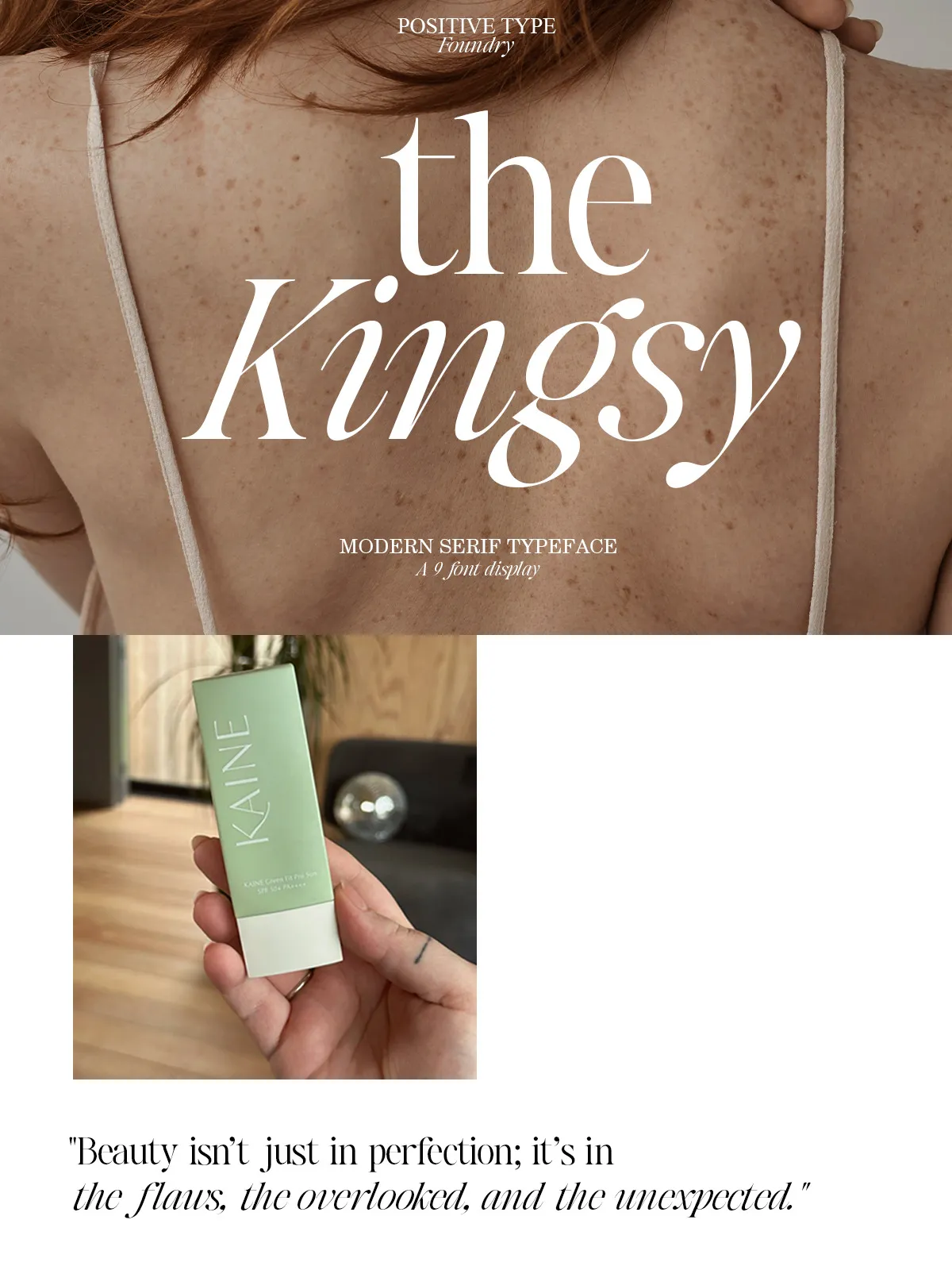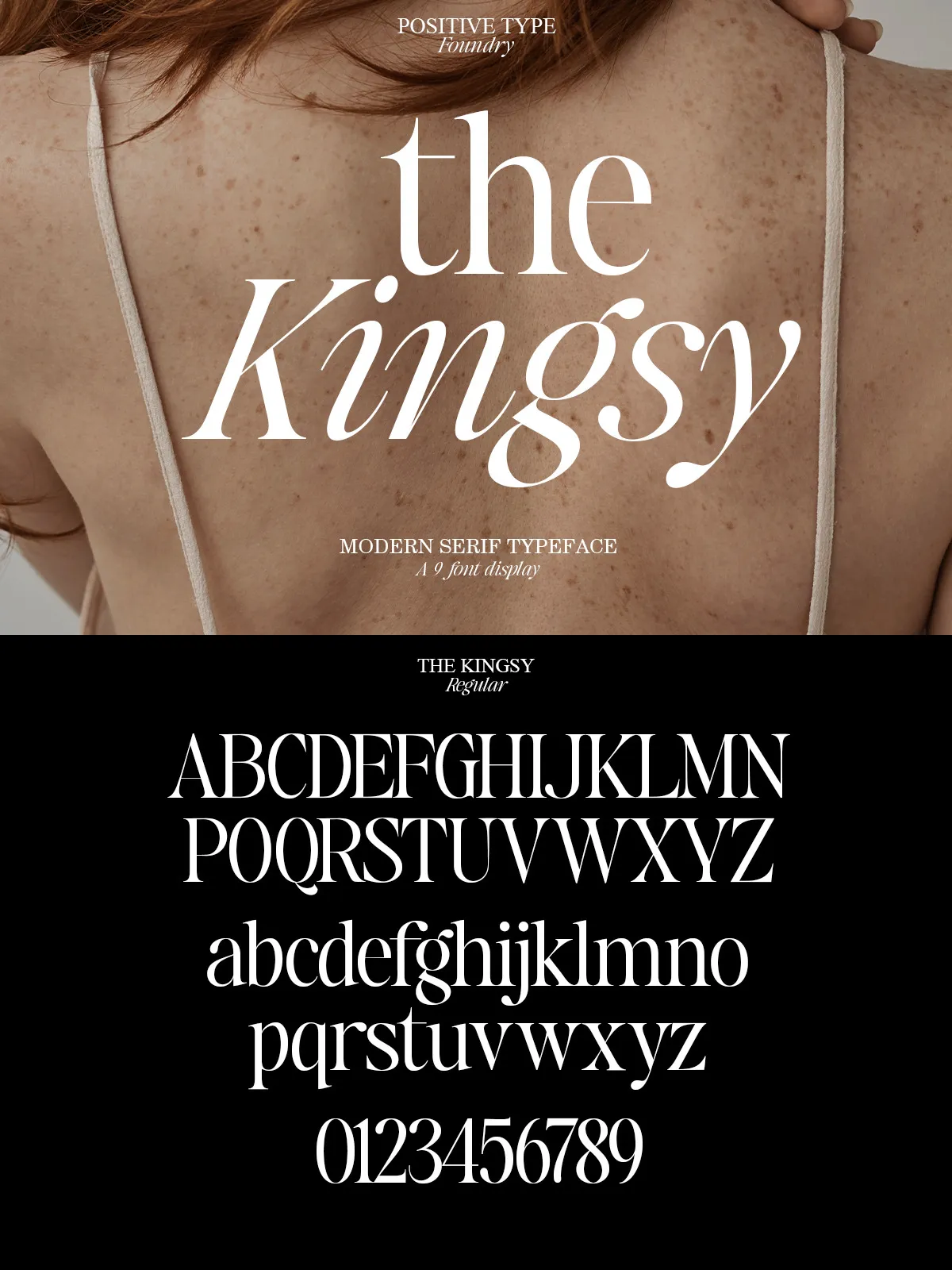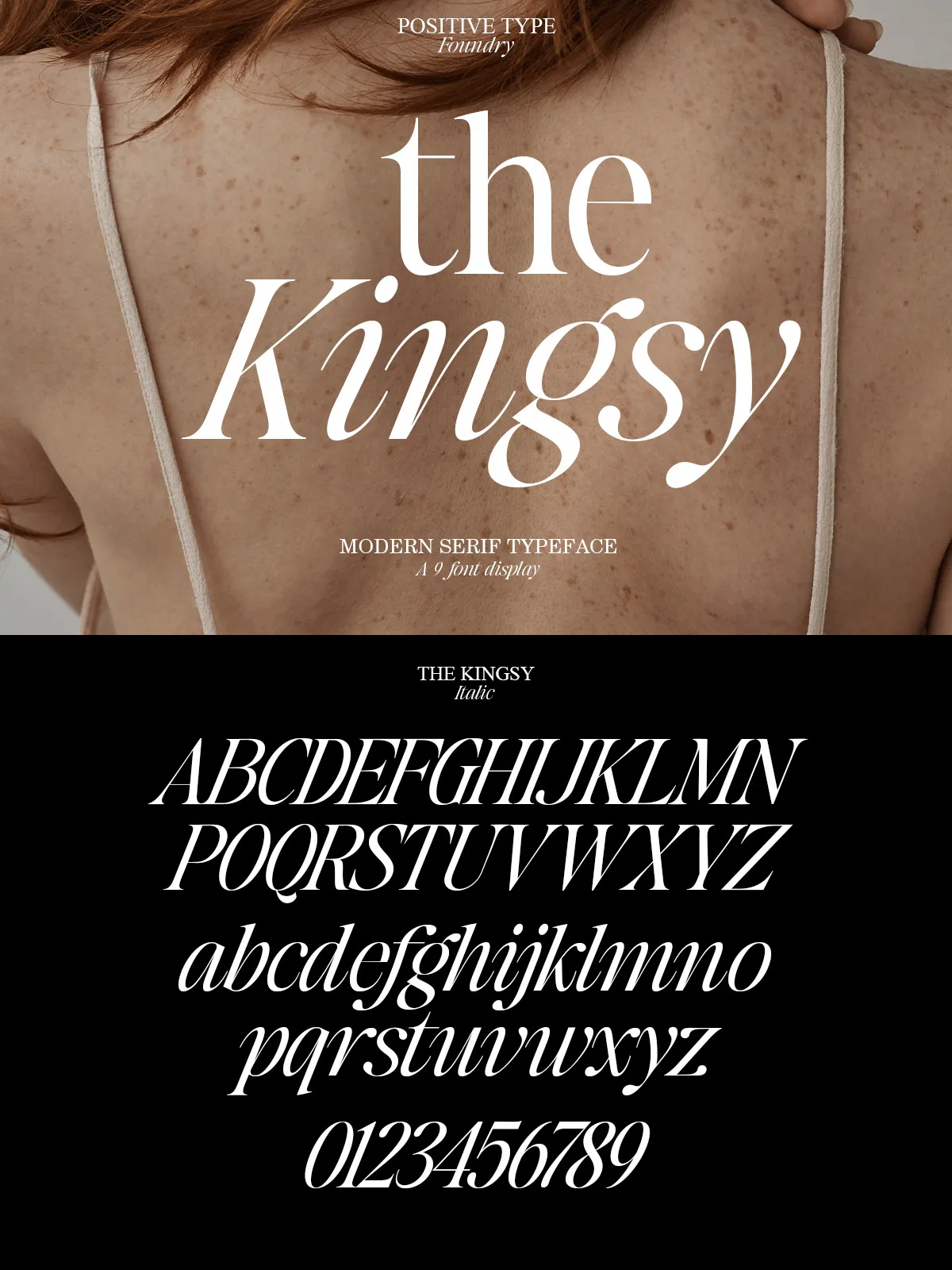
Kingsy isn’t just a font—it’s a statement. Designed for discerning creatives who value both grace and functionality, this serif typeface brings classic refinement to modern design projects. With its crisp lines, balanced proportions, and nuanced stroke contrast, Kingsy effortlessly elevates branding, editorial layouts, invitations, logos, and more. Whether you’re crafting a luxury fashion concept, a high-end magazine spread, or an elegant wedding suite, Kingsy delivers presence, clarity, and sophistication in every character.
Complete Family, Unmatched Flexibility
With nine meticulously crafted styles, Kingsy offers designers unparalleled control over typographic expression:
- Kingsy Regular
- Kingsy Italic
- Kingsy Condensed
- Kingsy Condensed Italic
- Kingsy Expanded
- Kingsy Expanded Italic
- Kingsy Slanted
- Kingsy Condensed Slanted
- Kingsy Expanded Slanted
This broad family ensures you can adapt Kerning, weight, and width at every stage of your design, from bold headlines to subtle captions. Use condensations for compact, impactful layouts; expansions for dramatic, airy statements. Pair slanted variants with traditional styles for dynamic visual tension. The seamless transitions between styles make Kingsy ideal for creating consistent, professional typographic systems.
Advanced OpenType Features for Professional Workflows
Kingsy goes beyond basic letterforms—it empowers your creativity with built-in typographic intelligence. Designed with industry-standard OpenType features, it gives you immediate access to:
- Kerning pairs: Optimized spacing for smooth, typographically balanced text.
- Contextual Ligatures: Natural, fluid connections between characters for refined reading rhythm.
- Style Sets: One-click access to alternate designs, enabling instant variation without complex editing.
- Stylistic Alternates: Switch out letters for subtle or bold visual changes—perfect for logo variants.
Rich Character Sets for Global Reach
Kingsy supports international typography with confidence. Its wide character set includes:
- Full uppercase and lowercase alphabets
- Arabic numerals and fractions
- Numerous punctuation marks and symbols
- Comprehensive multilingual support (Latin, Cyrillic, Greek, and extended Unicode)
- Special glyphs including ligatures and decorative accents
Whether you’re designing for an international publication, a multilingual brand identity, or a global campaign, Kingsy performs fluently across languages, cultures, and platforms.
Perfect for Branding, Editorial, and Premium Print
Kingsy thrives in contexts demanding distinction and authority. Use it to:
- Create iconic brand identities with memorable typography
- Design high-impact logotypes and wordmarks
- Enhance editorial layouts with elegant headline and caption pairings
- Produce sophisticated invitations, stationery, and wedding suites
- Build luxury packaging and product labels
- Develop premium digital experiences with typographic polish
For maximum effect, pair Kingsy with minimal body text—opt for clean sans-serif fonts like Helvetica Neue, Inter, or Lato—to let its serif beauty shine without visual clutter.